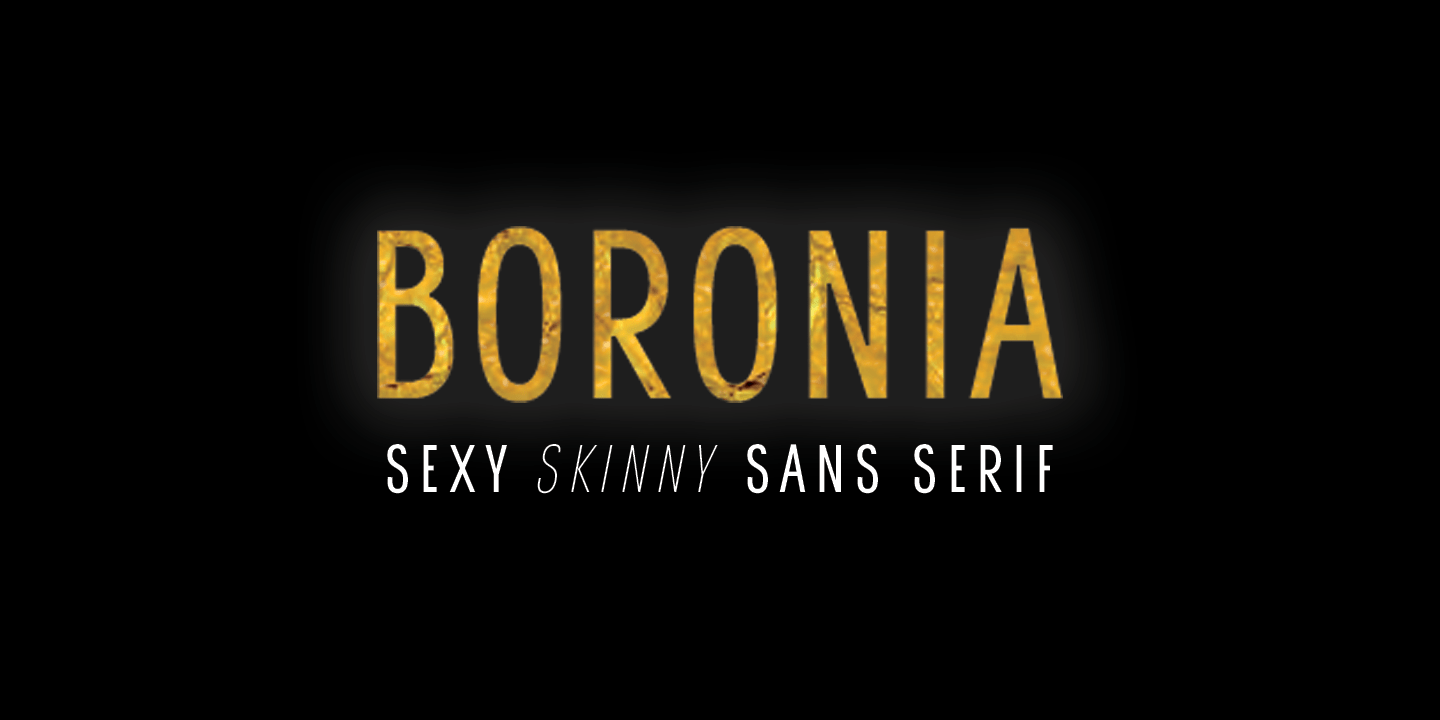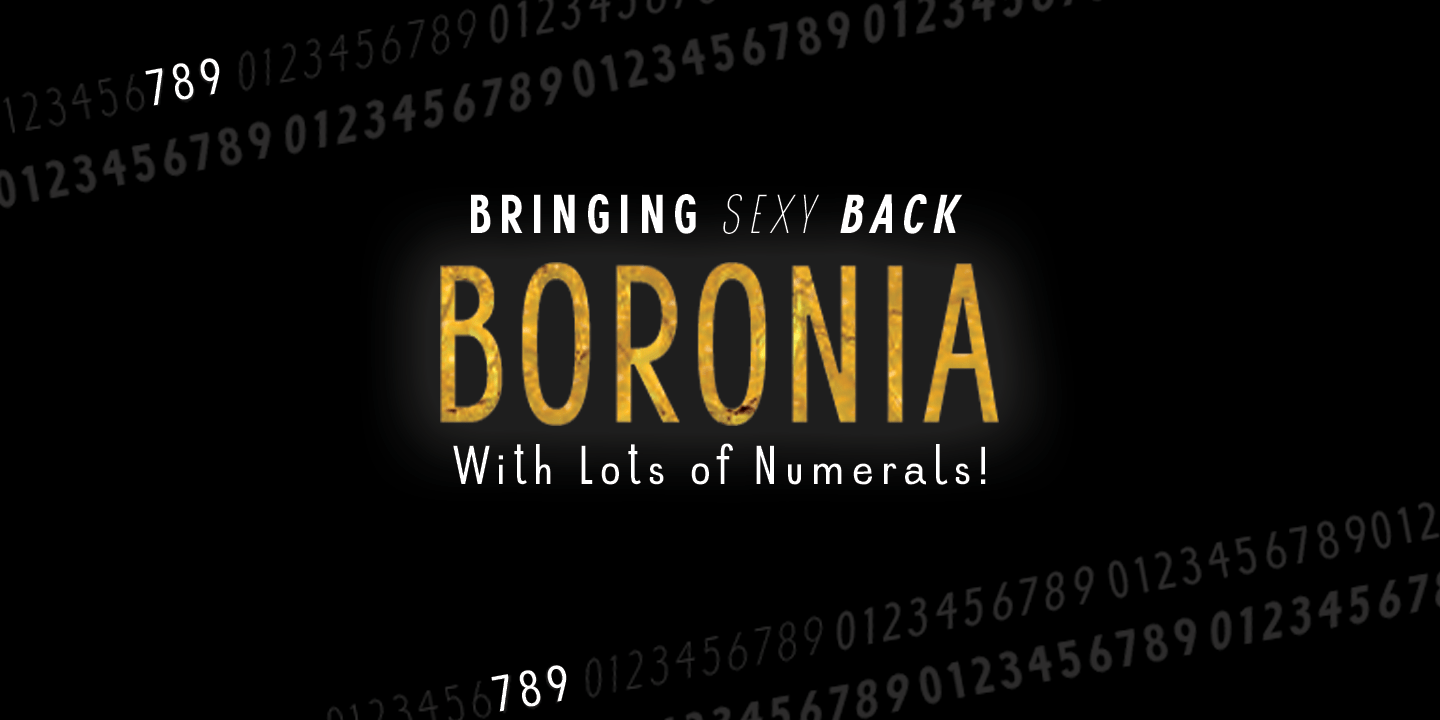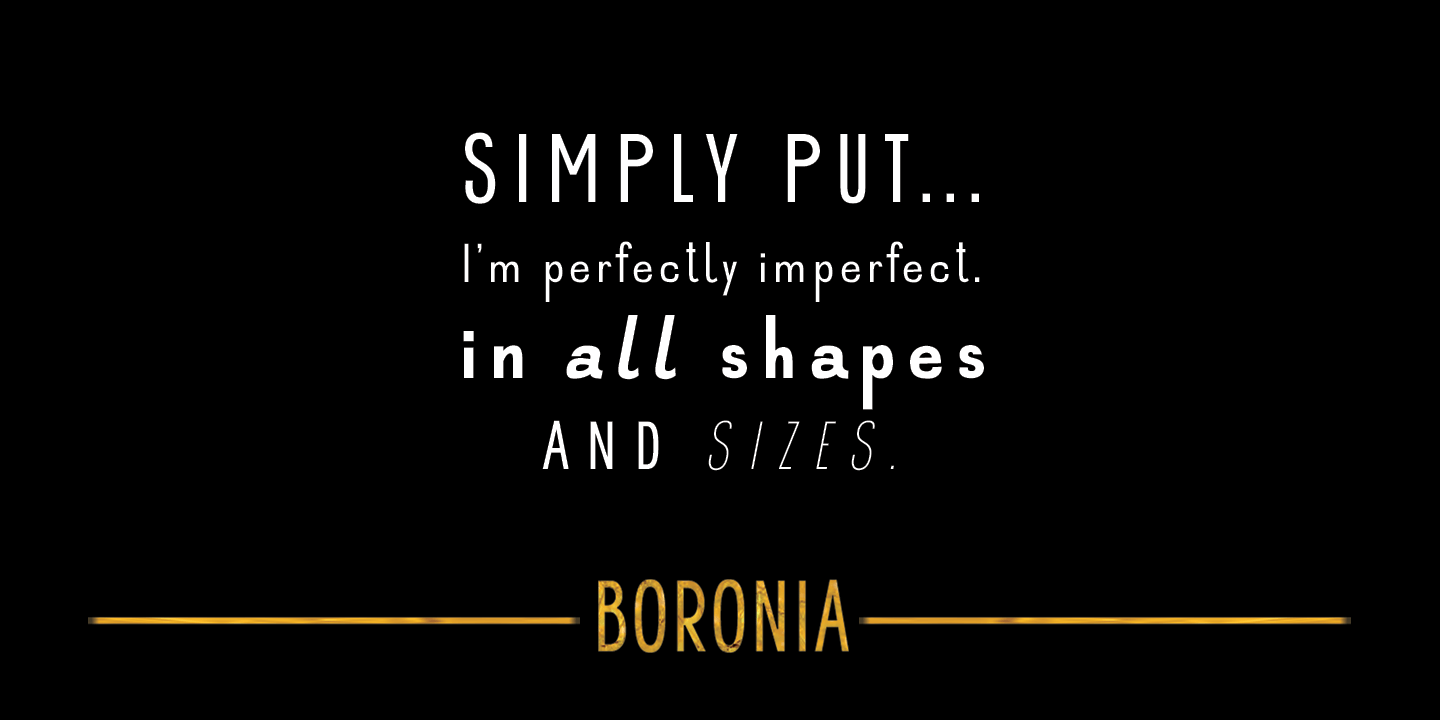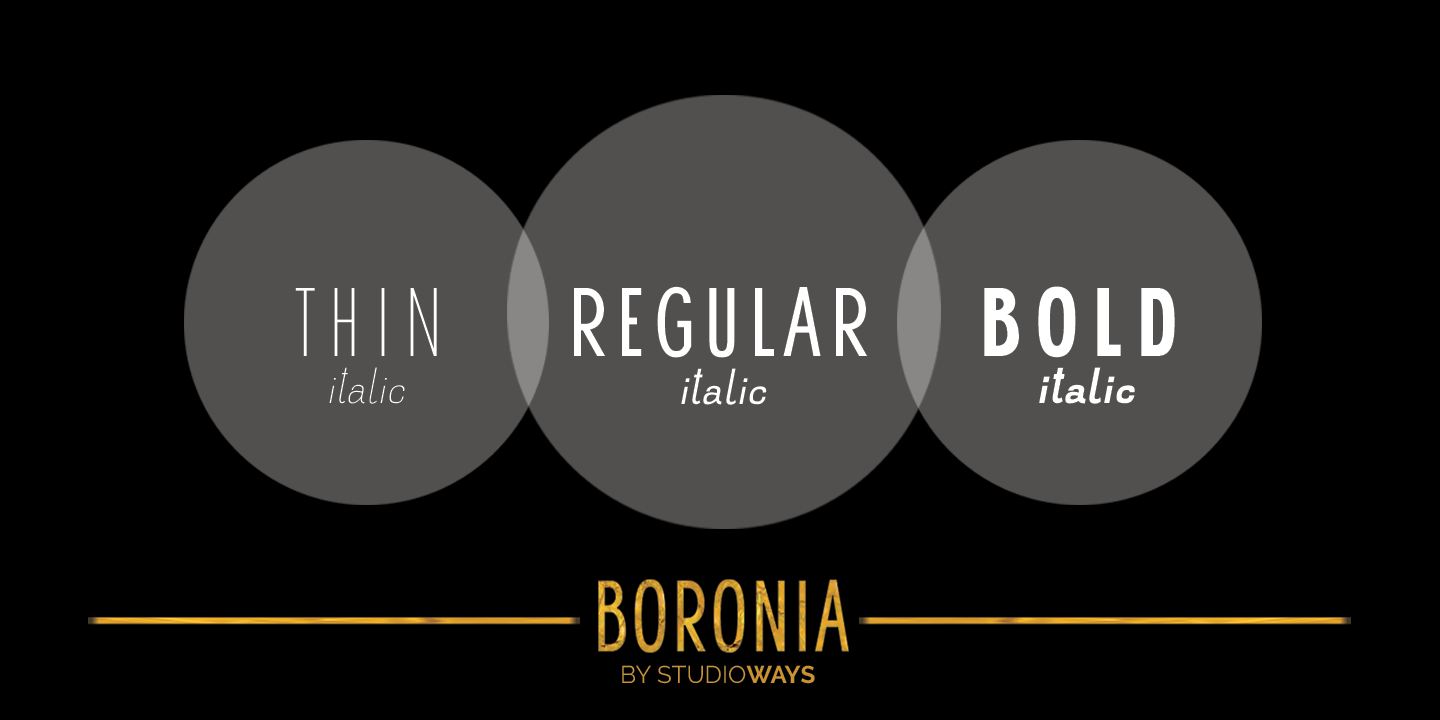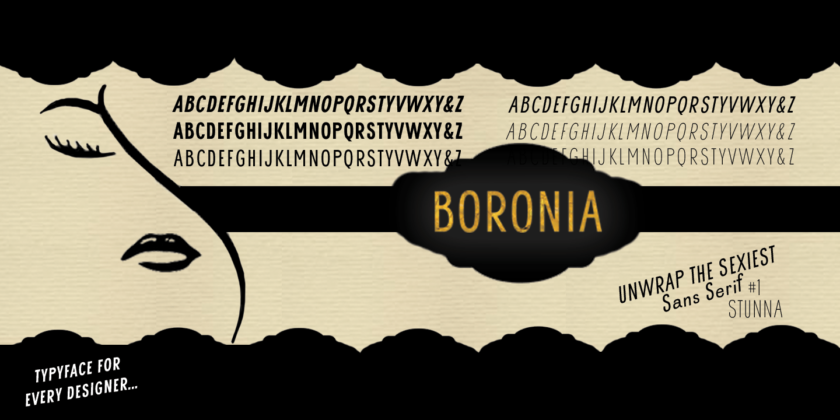
About Boronia
Meet Boronia, Studioways\’ latest release! This six weight family was developed with the single idea of redefining the simple sans serif to pair with any style of font family. It is meant to blend with a variety of media, from editorial to bridal and fashion.…